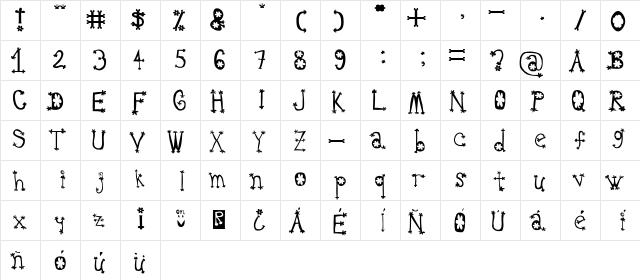
Oldie Splat Oldie
Design Context for Oldie Splat Typeface
Oldie Splat is a composed and adaptable typeface that performs quietly and consistently across a wide range of design contexts.